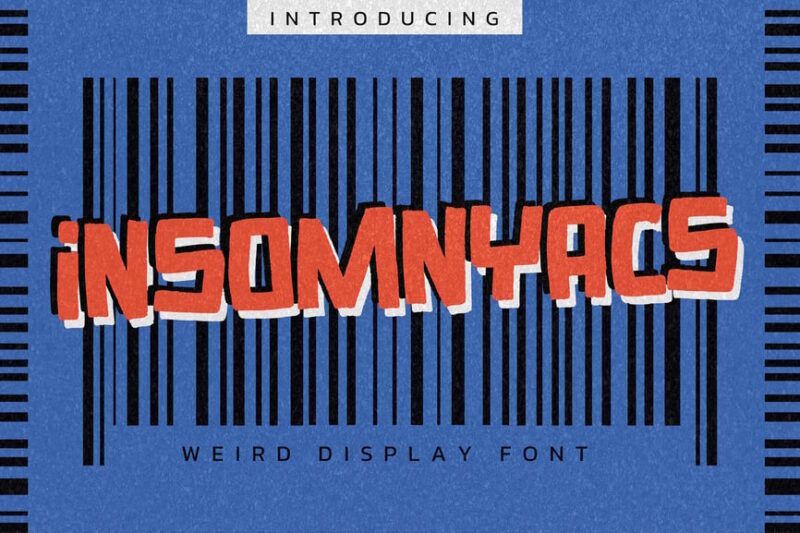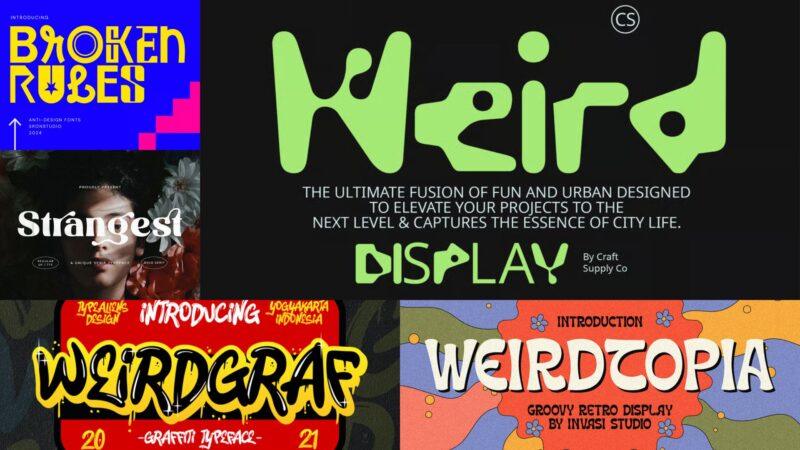
31 Way Weird Fonts that are Oddly Satisfying in 2026
Picture this: you’re scrolling through yet another design that screams “generic,” and suddenly – BAM – a typeface hits you that looks like it crawled out of a fever dream. That’s the moment you realize you’ve encountered a weird font, and honestly? It’s beautiful.
These typographic rebels – the melting letters, the alien-inspired characters, the physics-defying letterforms – are the secret weapons that separate memorable designs from forgettable ones. After years of wrangling with every font family imaginable, I’ve learned that the strangest typefaces often deliver the most powerful punch.
Why settle for predictable when you could choose peculiar? From delightfully grotesque display fonts to mind-bending experimental typefaces, unconventional typography has this magical ability to stop viewers in their tracks and make them actually pay attention. Ready to embrace the beautifully bizarre world of weird fonts and create designs that refuse to be ignored? Let’s get wonderfully weird together.
31 Super Weird Fonts We Actually Like
CS Weird
CS Weird is a funky and eye-catching display font perfect for posters and bold designs. Its unconventional letterforms and playful style make it ideal for creating striking headlines and attention-grabbing visuals.
INSOMNYACS
INSOMNYACS is a unique sans-serif display font with a cool, edgy vibe. Its unusual letterforms and quirky details make it perfect for creating standout designs in youth-oriented or alternative-style projects.
Strangest
Strangest is a distinctive serif typeface that combines traditional elements with unconventional twists. Its alternate characters and unique styling make it excellent for branding projects that require a touch of the extraordinary.
Super Weird
Super Weird is a decorative font that blends graffiti-inspired elements with fancy, elaborate letterforms. This font is perfect for creating bold, urban-style designs or adding a touch of eccentricity to various graphic projects.
Gizale
Gizale is a versatile sans-serif font with variable options, allowing for a wide range of design possibilities. Its clean lines and modern aesthetic make it suitable for various applications, from body text to headlines.
Yavome
Yavome is a quirky serif font that combines classical elements with playful, unconventional details. Its unique character makes it ideal for projects that require a balance of tradition and modernity, perfect for standout branding or editorial designs.
Weirdgraf
Weirdgraf is a decorative typeface that pushes the boundaries of conventional letterforms. Its unusual bubble shapes and experimental design make it perfect for creating eye-catching headlines, logos, or artistic typographic compositions.
WS Strange Crispy
WS Strange Crispy is a handwritten script font with a unique, crisp style. Its distinctive character makes it excellent for branding projects, particularly those aiming for a personal, artisanal, or slightly offbeat feel.
Freakshow
Freakshow is a decorative font that evokes the eerie charm of carnival sideshows. Its distorted, playful letterforms make it perfect for creating attention-grabbing designs for entertainment events, Halloween themes, or any project requiring a touch of the bizarre.
Cringe Experimental Typeface
Cringe is an experimental typeface that combines serif elements with psychedelic and symbolic features. Its unconventional design pushes typographic boundaries, making it ideal for creating visually striking and thought-provoking designs in art and alternative culture contexts.
Biplex
Biplex is a modern, creative sans-serif font with an unusual twist on traditional letterforms. Its unique alphabet design makes it perfect for creating eye-catching headlines, logos, or branding materials that demand attention and originality.
Weirdtopia
Weirdtopia is a groovy, retro-inspired font that captures the essence of 60s and 70s design. Its funky letterforms and vintage vibe make it perfect for creating nostalgic designs or adding a touch of retro cool to modern projects.
Surreal
Surreal is a psychedelic typeface that embodies the visual style of 1960s hippie culture. Its flowing, dreamlike letterforms make it ideal for creating designs that evoke a sense of altered reality, perfect for music posters, album covers, or countercultural themes.
Quirked
Quirked is a stencil-style font with a playful, offbeat character. Its unconventional letterforms and whimsical details make it excellent for creating eye-catching display text in projects that aim to stand out from the crowd.